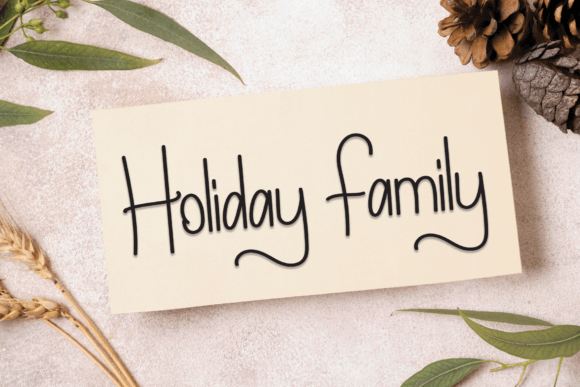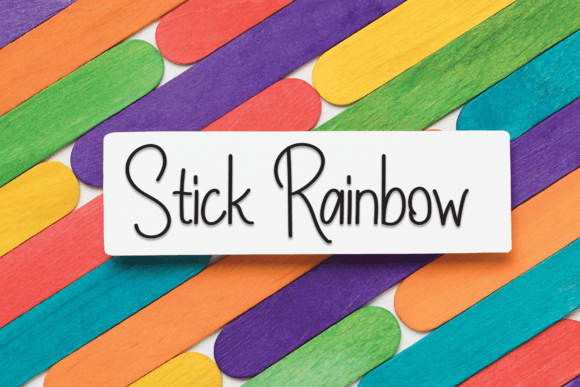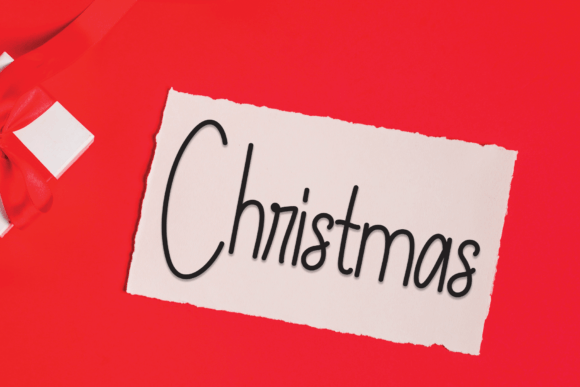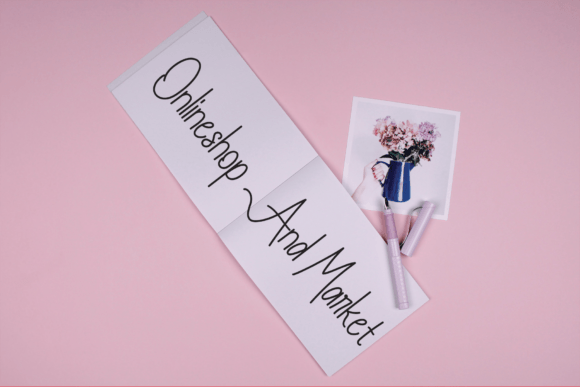
Introducing Handmade Bokk: The Sweet and Smooth Handwritten Font for Your Creative Projects
Are you a designer, crafter, or DIY enthusiast looking for a font that can add a touch of romance and personality to your projects? Look no further than Handmade Bokk, a beautiful and versatile handwritten font that’s perfect for a wide range of creative applications. In this article, we’ll take a closer look at the features and benefits of Handmade Bokk, and explore how you can use it to take your designs to the next level.
What is Handmade Bokk?
Handmade Bokk is a sweet and smooth handwritten font that’s designed to bring a touch of warmth and personality to your designs. This beautiful font features a playful and cursive style, with flowing lines and delicate curves that give it a charming and romantic feel. Whether you’re creating wedding invitations, greeting cards, or any other type of design that requires a personal touch, Handmade Bokk is the perfect choice.
Key Features of Handmade Bokk
So what makes Handmade Bokk so special? Here are just a few of the key features that set this font apart:
- Sweet and smooth curves: Handmade Bokk features delicate, flowing curves that give it a soft and romantic feel.
- Playful and cursive style: This font has a playful, handwritten style that’s perfect for adding a personal touch to your designs.
- Highly legible: Despite its ornate style, Handmade Bokk is highly legible, making it perfect for use in a wide range of applications.
- Versatile: This font can be used for everything from wedding invitations and greeting cards to packaging and branding.
Uses for Handmade Bokk
So what can you use Handmade Bokk for? The possibilities are endless! Here are just a few ideas to get you started:
- Wedding invitations: Add a touch of romance and elegance to your wedding invitations with Handmade Bokk.
- Greeting cards: Create beautiful, personalized greeting cards for special occasions like birthdays, anniversaries, and holidays.
- Branding and packaging: Use Handmade Bokk to add a personal touch to your branding and packaging, and stand out from the competition.
- DIY projects: Add a touch of handmade charm to your DIY projects, such as scrapbooking, journaling, and crafting.
Tips for Using Handmade Bokk
Here are a few tips for getting the most out of Handmade Bokk:
- Use it sparingly: While Handmade Bokk is a beautiful font, it can be overwhelming if used too much. Use it sparingly to add a touch of elegance and sophistication to your designs.
- Experiment with colors: Handmade Bokk looks great in a variety of colors, from soft pastels to rich jewel tones. Experiment with different colors to find the perfect look for your design.
- Pair it with other fonts: Handmade Bokk pairs well with a variety of other fonts, from clean and simple sans serifs to elegant and ornate scripts. Experiment with different pairings to find the perfect look for your design.
Handmade Bokk is a beautiful and versatile handwritten font that’s perfect for designers, crafters, and DIY enthusiasts. With its sweet and smooth curves, playful and cursive style, and highly legible design, this font is ideal for adding a touch of romance and personality to your projects. Whether you’re creating wedding invitations, greeting cards, or any other type of design, Handmade Bokk is the perfect choice. So why wait? Download Handmade Bokk today and start creating beautiful, handmade-inspired designs that will capture the hearts of your audience.